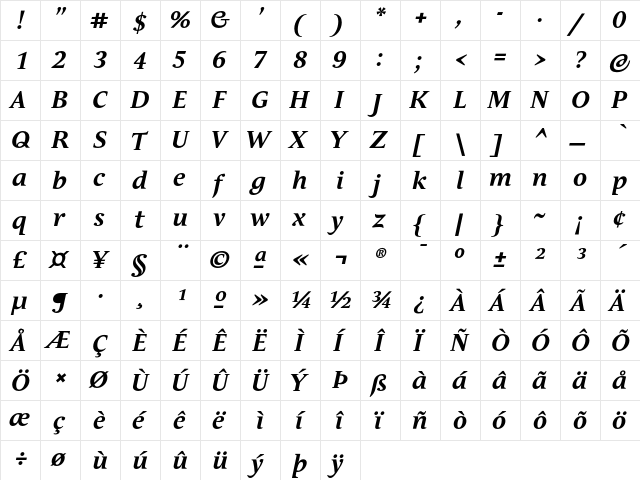
Andulka Text Pro Bold Italic
| Designer | Frantisek Storm |
Design Context for Andulka Text Pro Typeface
Andulka Text Pro is a composed and adaptable typeface that performs quietly and consistently across a wide range of design contexts. The slanted form adds forward momentum and visual energy. The heavy weight commands attention and anchors typographic hierarchies.
Pro Tip: Use Andulka Text Pro for emphasis, pull quotes, and subheadings where its slanted energy can add rhythm to the layout.